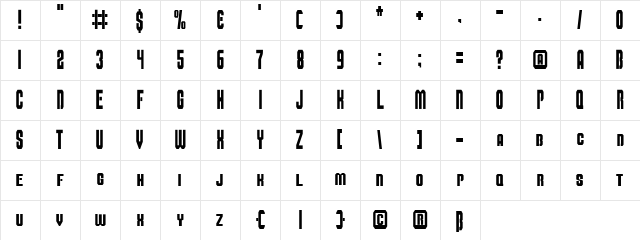
Complete Super Mario Bros Alphabet glyph index. Displaying only characters natively supported by Super Mario Bros Alphabet font.
Super Mario Bros Alphabet is a composed and adaptable typeface that performs quietly and consistently across a wide range of design contexts.